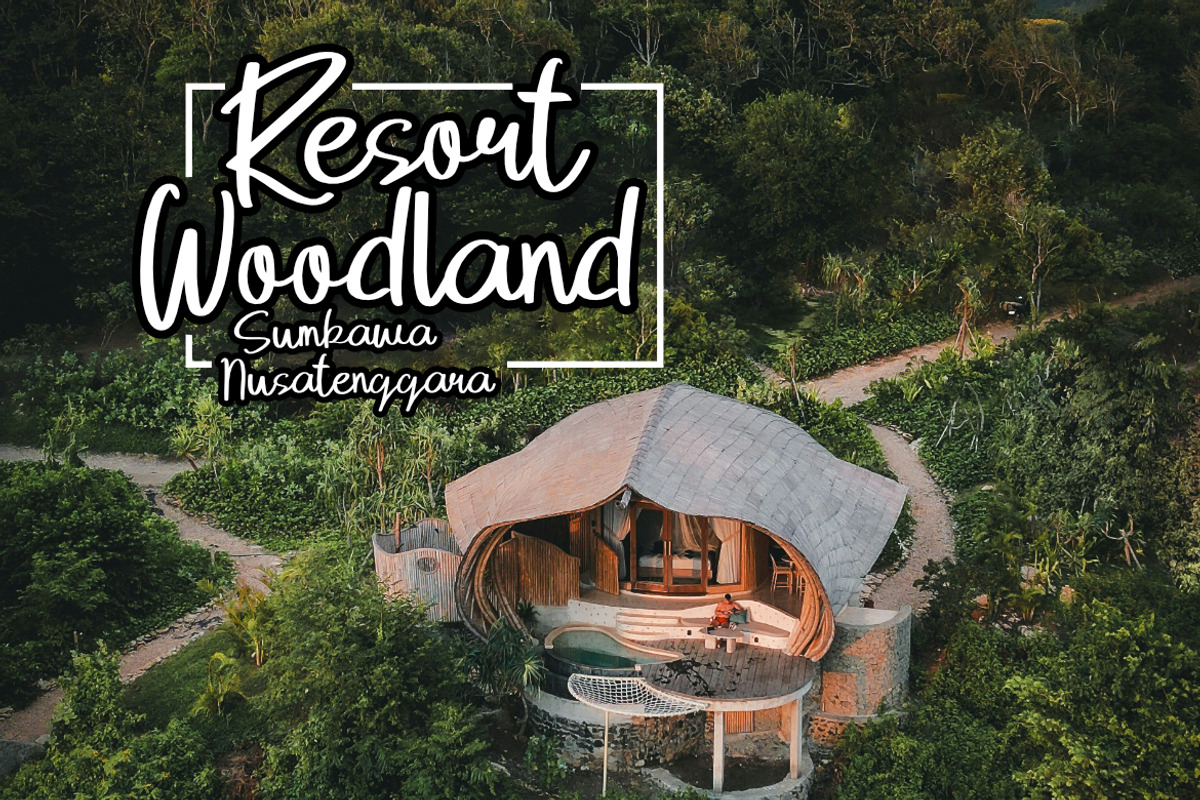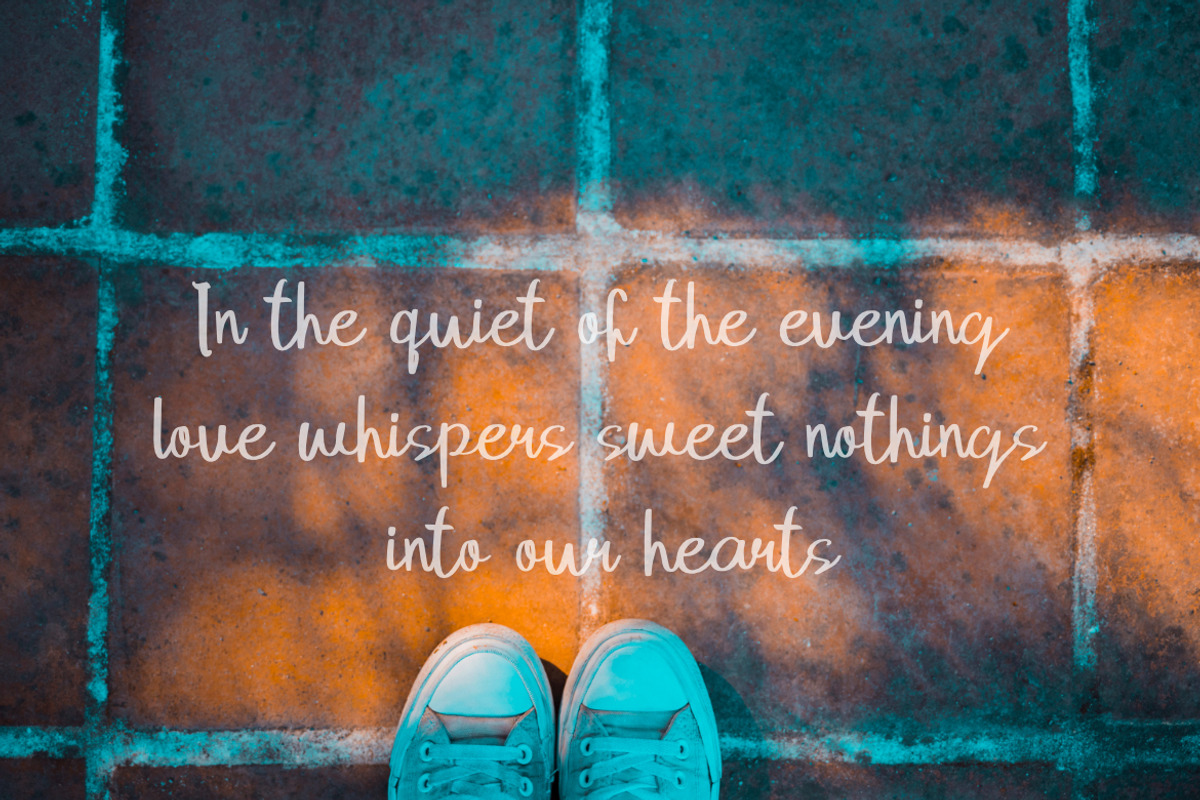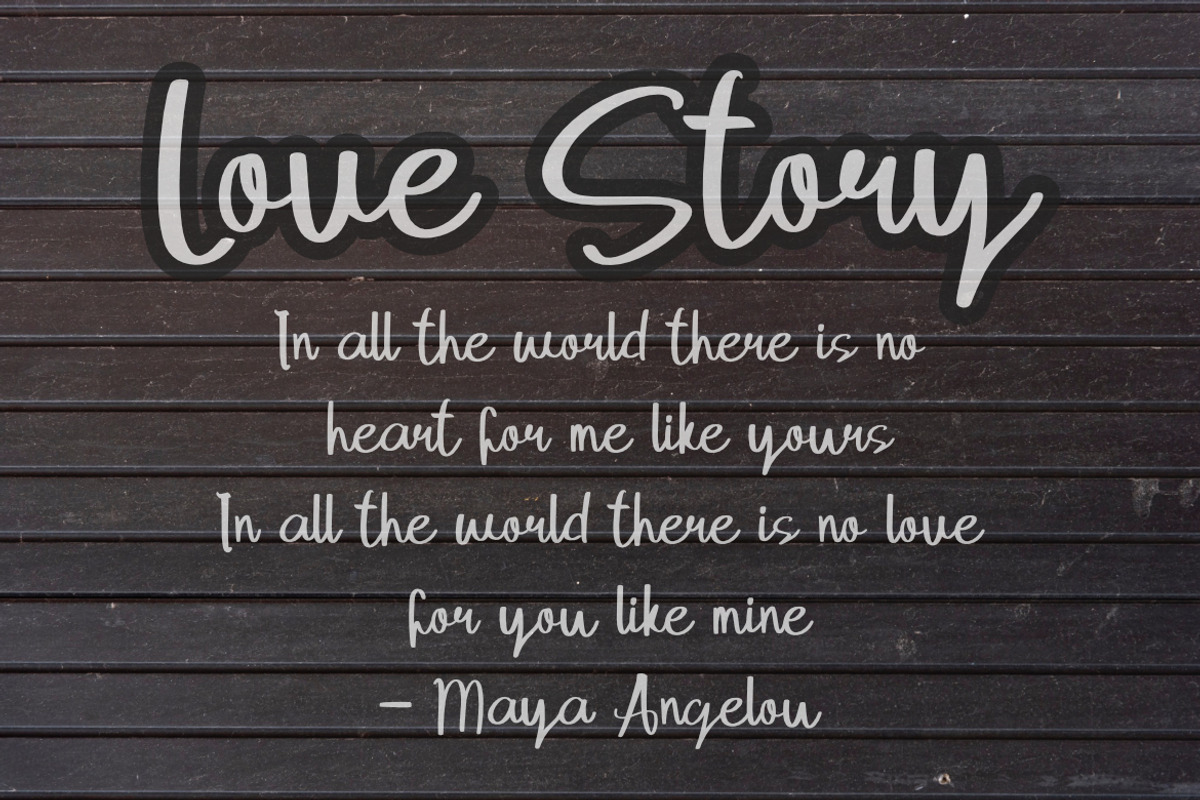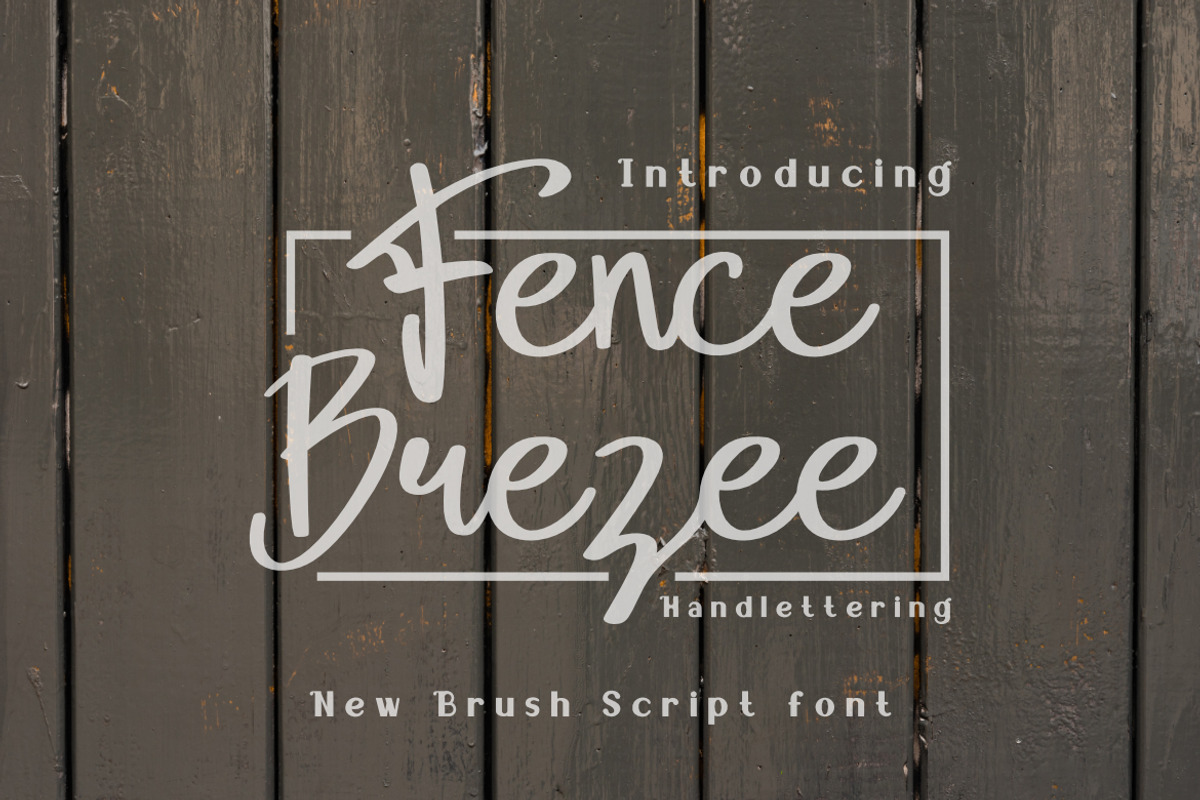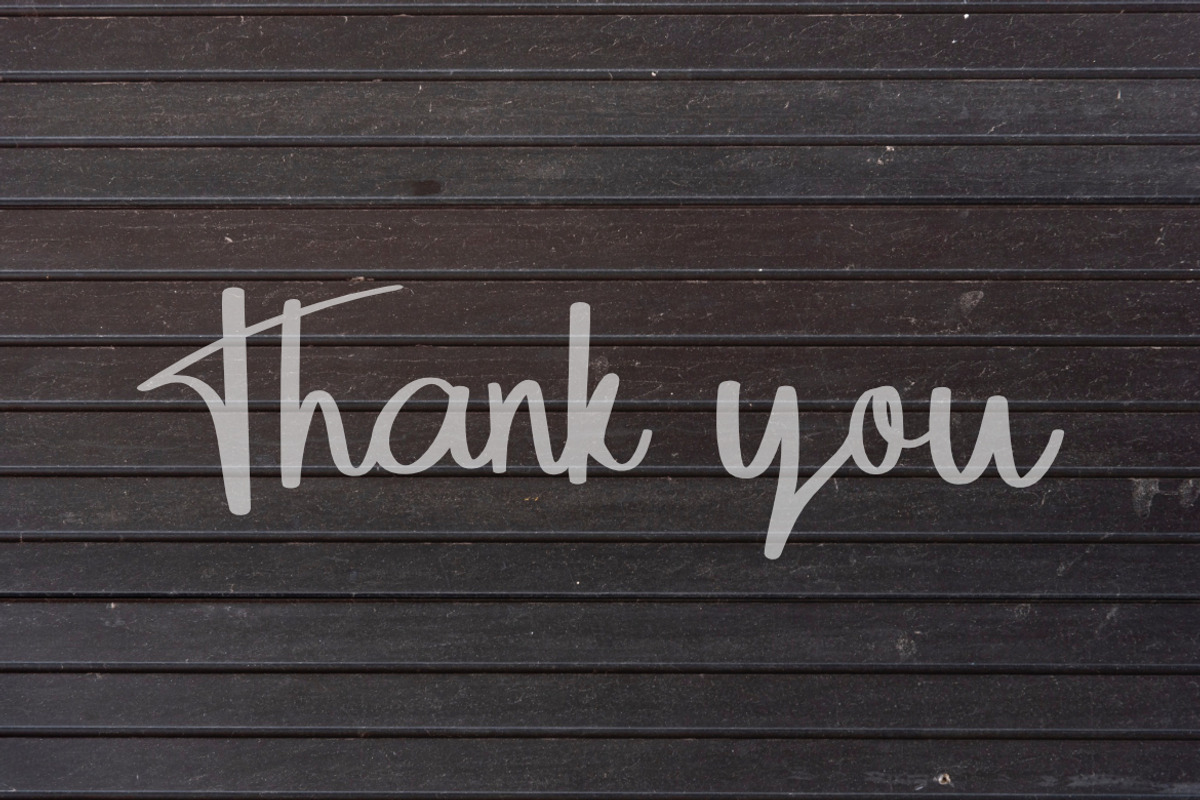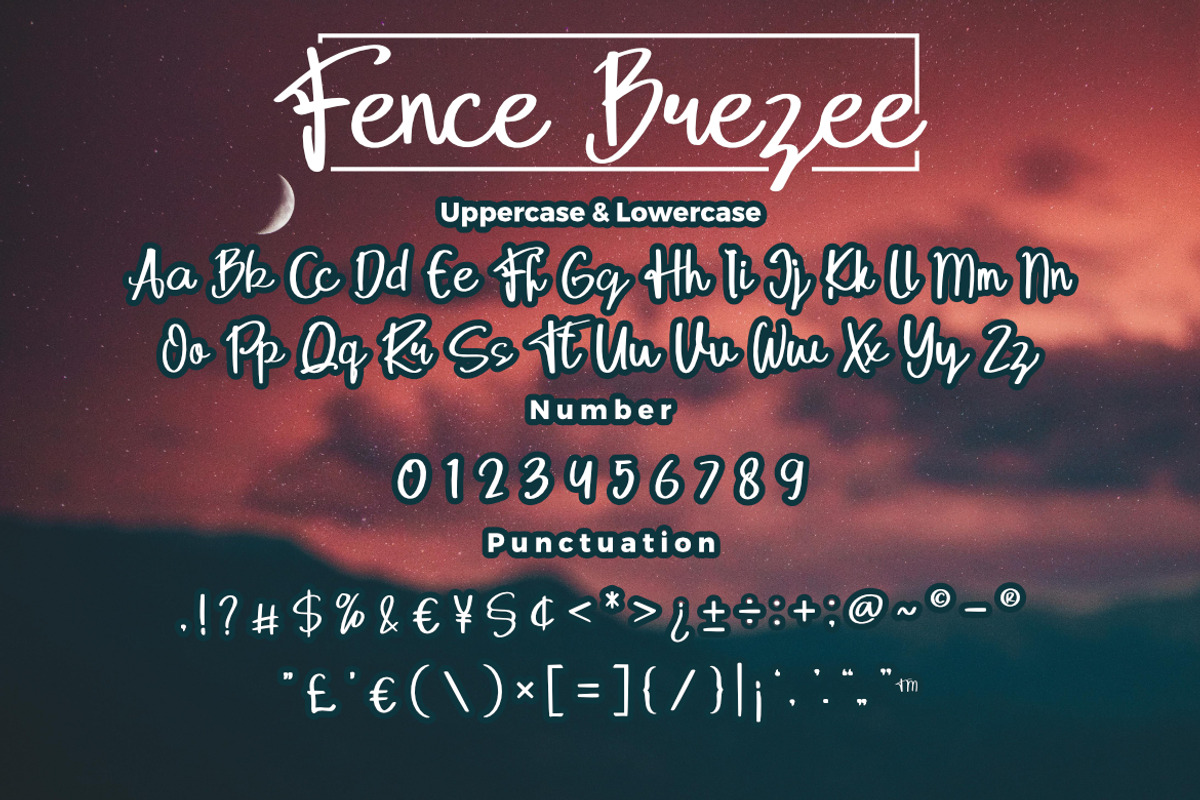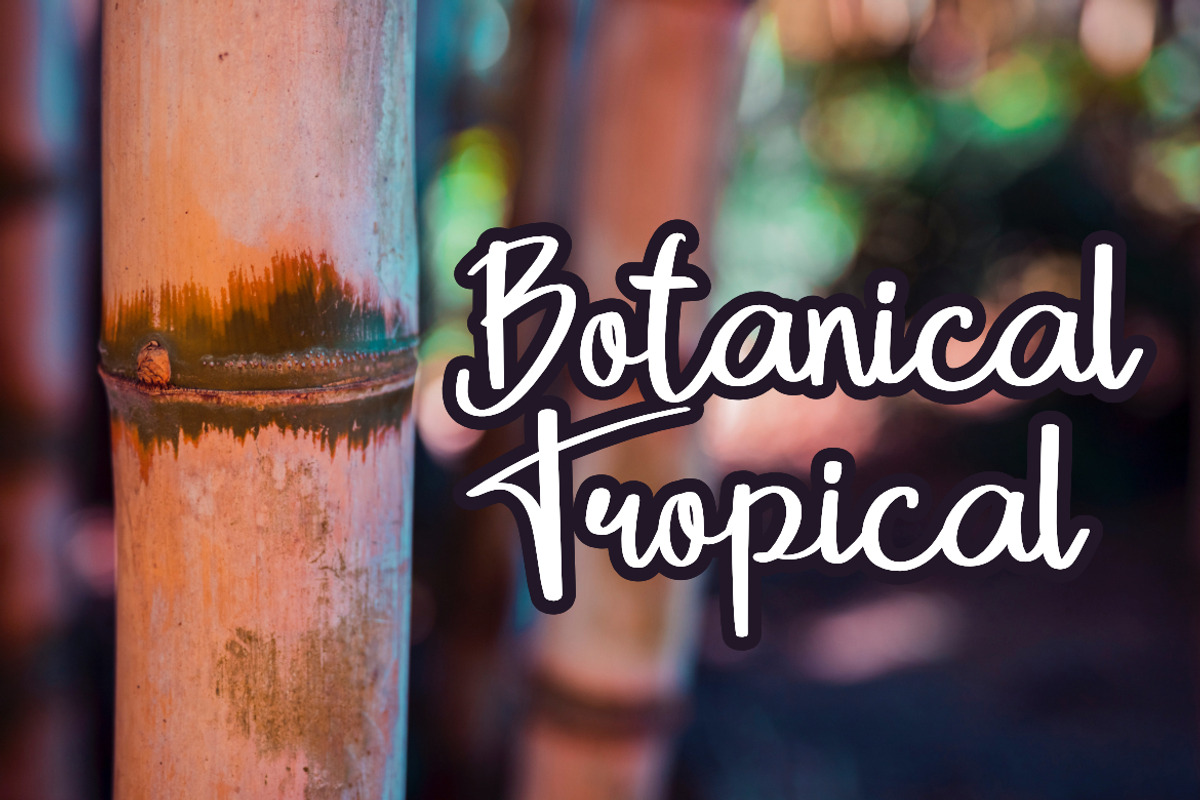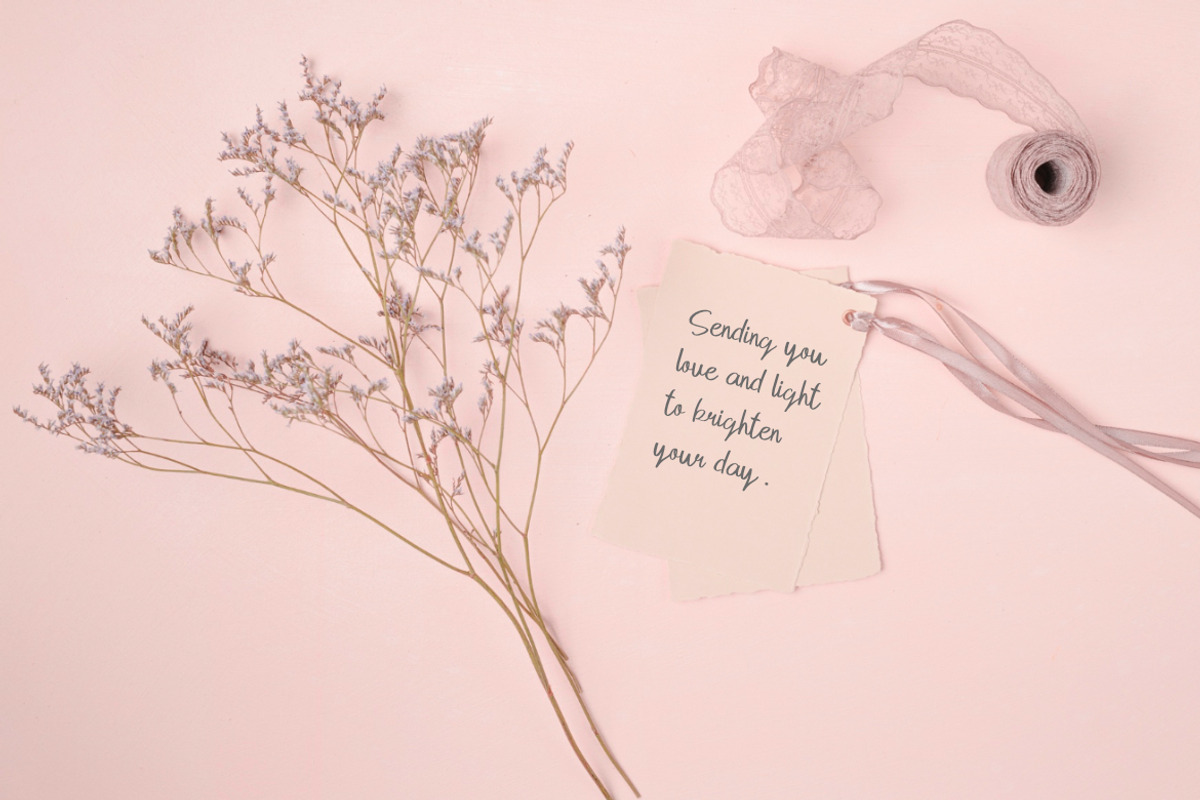
Fence Brezee - Script Font
Fence Brezee Handlettering Font, This font is made with a high premium quality level which you can use as flyers, quotes, posters, banners, packaging, merchandise, logotypes and much more.